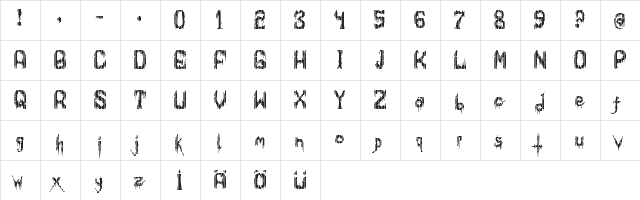
horror23 Regular
Design Context for horror23 Typeface
horror23 leans into the macabre with letterforms designed to disturb and intrigue in equal measure.
Perfect for anything that needs to unsettle — game titles, horror branding, and macabre invitations.
Font Pairing: Pair with a clean neutral sans-serif for body copy to let horror23's character lead without overwhelming the composition.
Pro Tip: Use horror23 at larger display sizes for maximum impact. Consider generous tracking to let the disturbing character of each letterform breathe.